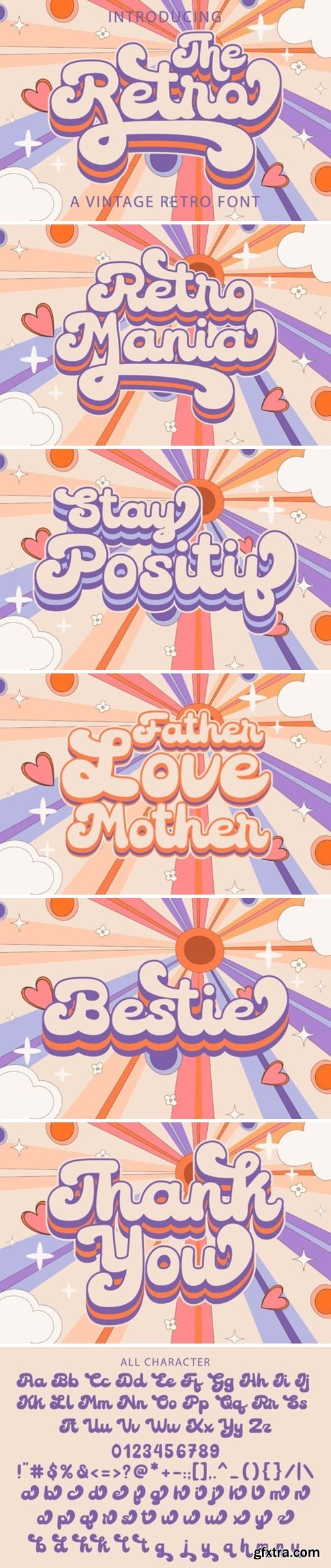
复古字体
Retro Magic is a cool, vintage-style display font. Use it to add that special retro touch to any design idea! It can be used for logos, branding, invitations, stationery, wedding designs, social media posts, and much more!